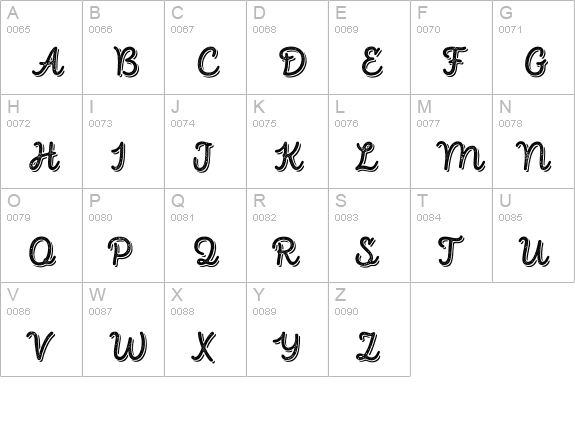
Intro Script B H2 Base Shade Font Details
Introducing Intro Script B H2 Base Shade font – a stunning display font that exudes elegance and sophistication. This font features intricate details and a unique design that will make your projects stand out. The graceful curves and sharp edges of Intro Script B H2 Base Shade font create a captivating visual impact, perfect for branding, logos, invitations, and more. And the best part? Intro Script B H2 Base Shade font is completely free to download at FontsMarket.com! Yes, you read that right – you can elevate your designs with this exquisite font without spending a penny. Don't miss out on this opportunity to add a touch of luxury to your creative endeavors with Intro Script B H2 Base Shade font. Download it now and let your creativity soar!